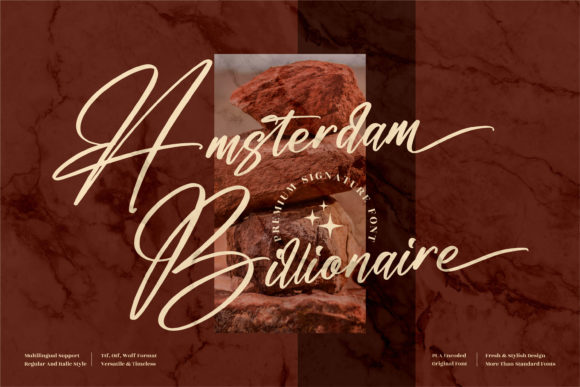
The Amsterdam Billionaire Font: Elevate Your Designs with Elegance
Have you ever been in the middle of a design project, and suddenly, you’re stuck on finding the perfect font? I recall a recent experience where I was working on a branding project for a high-end homeware client. The design was almost complete, but something was missing – a font that could convey luxury, sophistication, and a touch of modernity. That’s when I stumbled upon the Amsterdam Billionaire font, and it instantly became the missing piece of the puzzle.
As a designer, I always look for fonts that can bring a project to life. Here’s my honest review of the Amsterdam Billionaire font:
- ✨ Modern and sleek script look: The Amsterdam Billionaire font boasts a contemporary script style that’s perfect for projects requiring a premium feel.
- ✅ Highly versatile: This font is suitable for a wide range of applications, from branding and homeware designs to mugs, quotes, book covers, and more.
- 💡 Ease of use: The font is easy to read and works well in various sizes, making it a great choice for both digital and print projects.
While the Amsterdam Billionaire font is excellent, there are a few minor considerations:
- 🤔 Legibility in small sizes: Like many script fonts, Amsterdam Billionaire might be less legible in very small sizes (below 10pt). It’s best used in larger sizes where its elegance can shine.
- ⚠️ Overuse of swashes: The font comes with beautiful swashes, but overusing them can make the text look cluttered. Balance is key.
One of the standout features of the Amsterdam Billionaire font is its support for OpenType features. This includes access to:
- Stylistic Sets: Offers variations of letterforms for a more customized look.
- Swashes: Elegant flourishes that can add a touch of luxury to your designs.
- Glyphs: Additional characters that can be used to add variety to your text.
The Inspiration Behind Amsterdam Billionaire
While the actual designer behind Amsterdam Billionaire remains a mystery, it’s easy to imagine that the inspiration came from a passion for modern luxury and a love for the elegant cityscapes of Amsterdam. The font embodies a blend of contemporary sleekness and classic sophistication, much like the Dutch capital itself.
Q: Is Amsterdam Billionaire suitable for body text?
A: While Amsterdam Billionaire is stunning as a display font, its script nature makes it less ideal for long body text. For readability, consider using it for headings or short paragraphs.
Q: Does Amsterdam Billionaire support multiple languages?
A: Many modern fonts, including scripts like Amsterdam Billionaire, support a range of languages. Check the font’s documentation for specific language support.